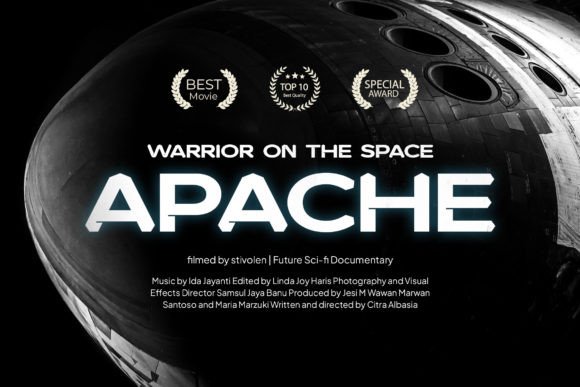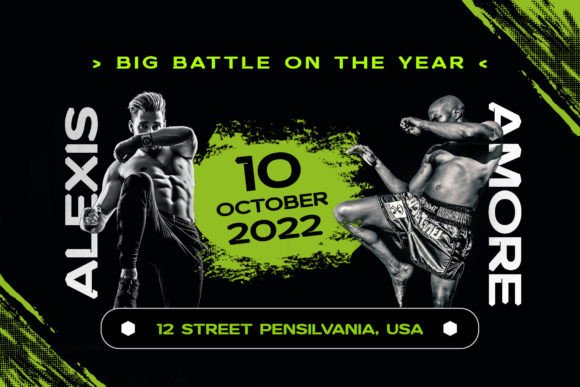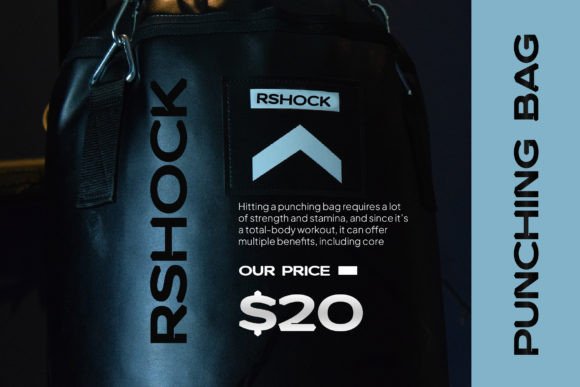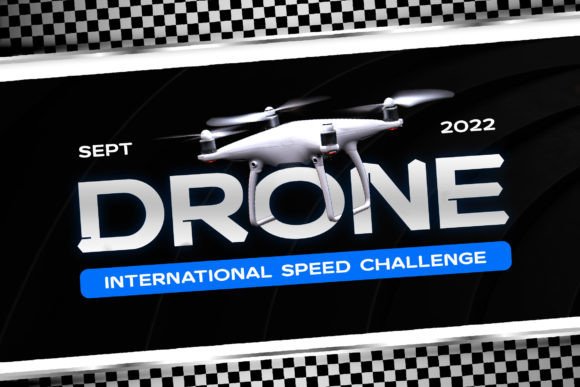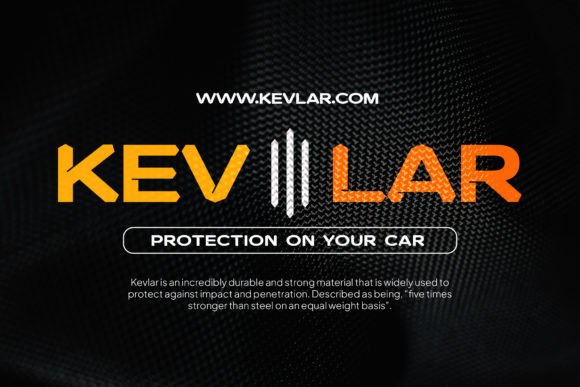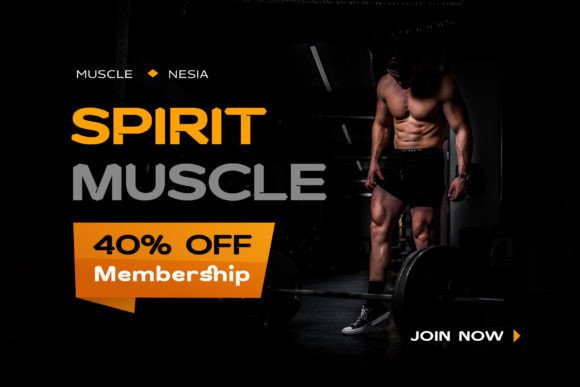
Introducing Amorize Font: The Modern and Bold Display Font You Need
Are you tired of using the same old fonts for your design projects? Do you want to add a touch of modernity and freshness to your creations? Look no further than Amorize Font, a contemporary and bold display font that’s perfect for making your designs stand out.
What is Amorize Font?
Amorize Font is a modern and bold display font designed to make a statement. Its clean lines, fresh curves, and edgy style make it perfect for a wide range of design projects, from branding and advertising to packaging and digital media. Whether you’re a designer, craftsperson, or DIY enthusiast, Amorize Font is the perfect addition to your creative toolkit.
Key Features of Amorize Font
- Modern and Bold: Amorize Font is a bold and eye-catching font that’s designed to grab attention. Its modern style makes it perfect for contemporary designs and projects.
- Contemporary and Fresh: Amorize Font has a fresh and contemporary feel that’s perfect for designs that require a modern touch.
- Versatile: Amorize Font can be used for a wide range of design projects, from headings and titles to logos and branding.
- Easily Readable: Despite its bold style, Amorize Font is easy to read, making it perfect for use in digital and print media.
Why Choose Amorize Font?
So why choose Amorize Font for your design projects? Here are just a few reasons:
- Stand Out: Amorize Font is designed to make a statement. Its bold and modern style ensures that your designs will stand out from the crowd.
- High-Quality: Amorize Font is a high-quality font that’s designed to deliver exceptional results in a wide range of design applications.
- Unique Style: Amorize Font has a unique style that’s unlike any other font on the market. It adds a touch of personality and flair to your designs.
Design Ideas Using Amorize Font
Amorize Font is a versatile font that can be used in a wide range of design projects. Here are some ideas to get you started:
- Branding and Logos: Use Amorize Font to create bold and eye-catching logos and branding materials.
- Posters and Flyers: Amorize Font is perfect for creating attention-grabbing posters and flyers.
- Social Media Graphics: Use Amorize Font to create bold and engaging social media graphics.
- Packaging: Amorize Font can be used to create eye-catching packaging that stands out on store shelves.
In conclusion, Amorize Font is a modern and bold display font that’s perfect for designers, craftspersons, and DIY enthusiasts. Its fresh and contemporary style makes it ideal for a wide range of design projects, from branding and advertising to packaging and digital media. With its ease of use, high-quality design, and unique style, Amorize Font is the perfect addition to your creative toolkit.